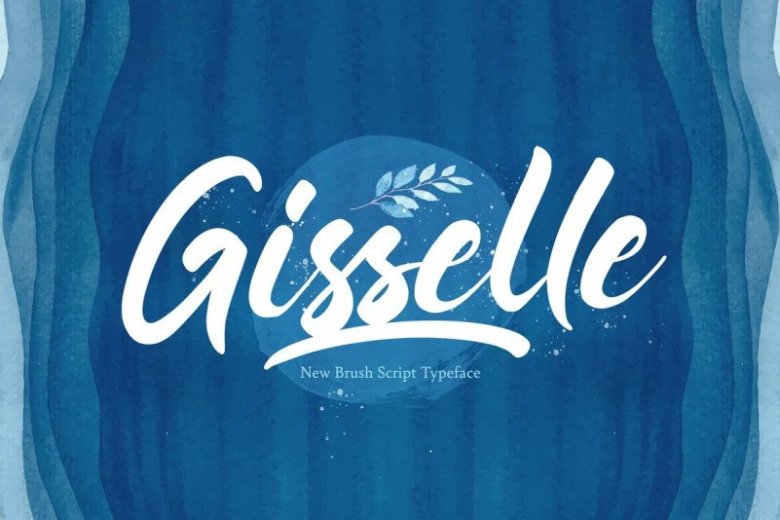
Gisselle Font
Gisselle Script Font – Handwritten font that has a distinctive character that is very thick and elegant to use, described by an elegant touch, perfect for your favorite projects. Fall in love with its incredibly distinct and timeless style and use it to create spectacular designs!